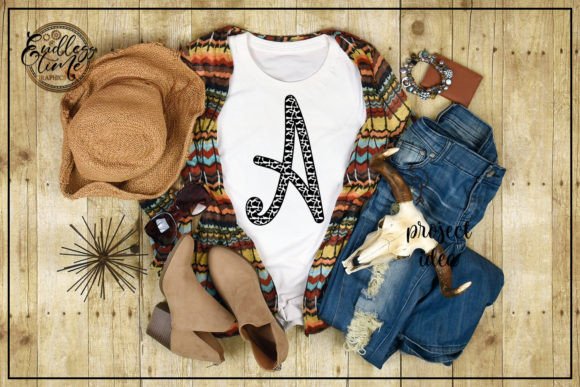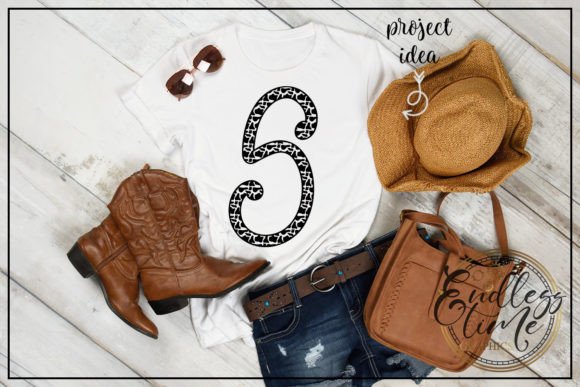
Introduction to Legend Dairy Font
This font is truly a standout, as there are currently no other cow print fonts available on the market (and perhaps for good reason).
It embraces the charm of cow spots while pushing the boundaries of typographic design Due to the intricate nature of the cow spots, this font contains an abundance of anchors and nodes, resulting in thousands of intricate details.